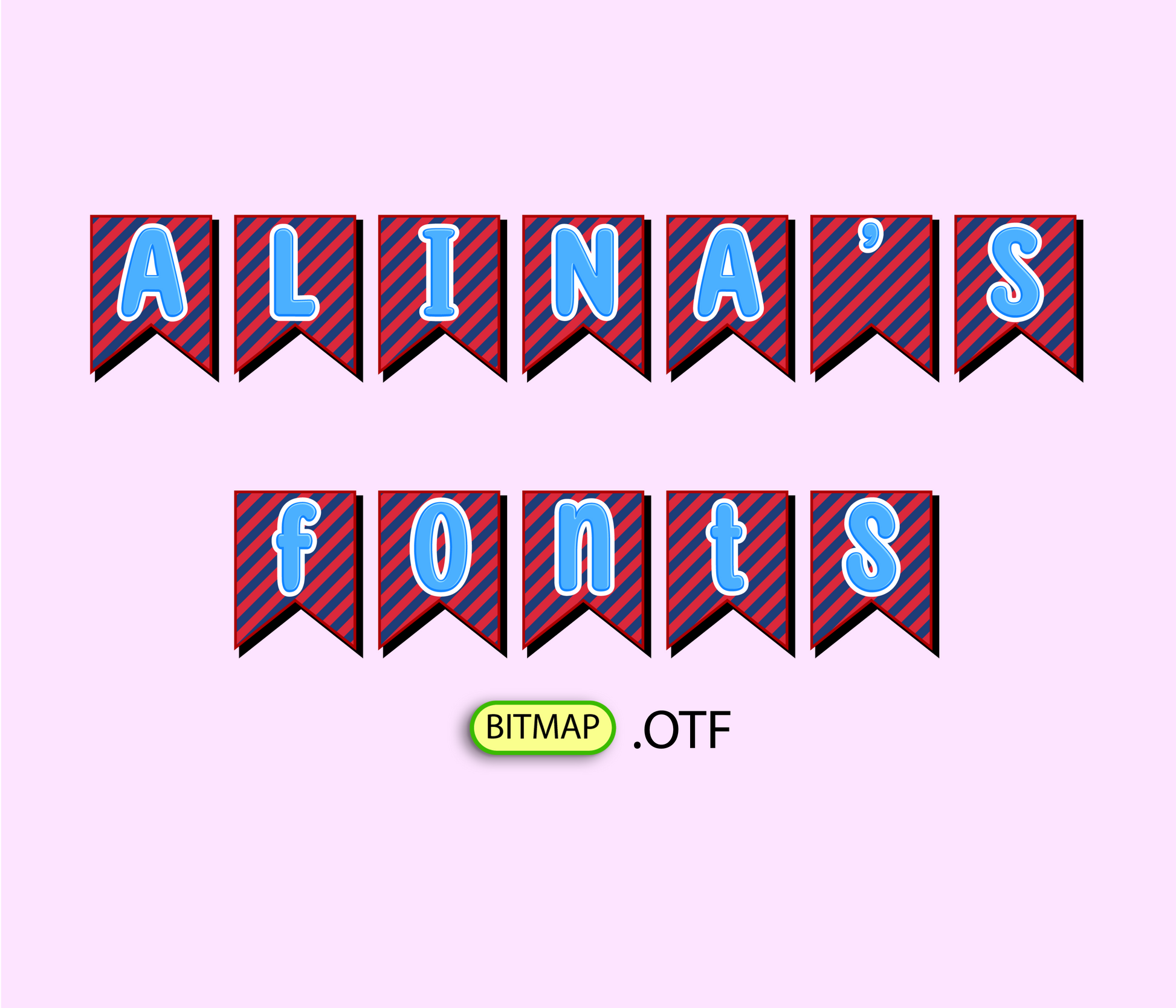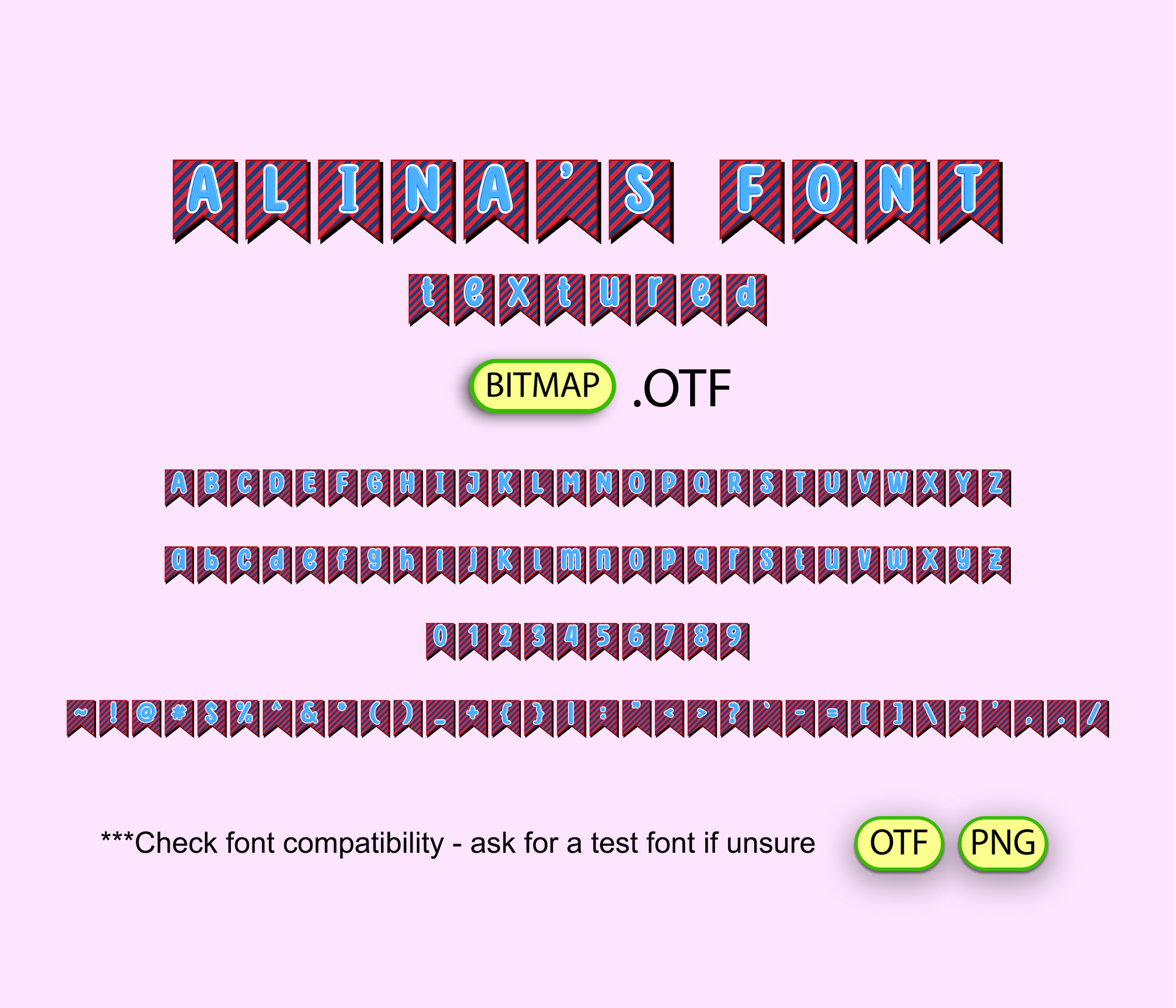
Liberty Heritage Banner Font Textured
Step into the timeworn dignity of founding-era commemoration and resonant historic liberty celebration with our Liberty Heritage Font Textured, capturing the essence of bell-toll remembrance and legendary founding history narrative storytelling. Perfect for Independence Day heritage planners, history enthusiast communities, commemorative event coordinators, and dignified design specialists, this font brings the bold, resonant character of beloved historic liberty narratives to your projects. Create dignified invitations, commercial goods, or web content with the resonant presence of founding-era heritage storytelling.
Dignified Typography for Independence Day & Historic Liberty Heritage Projects
Our Liberty Heritage Font Textured features bold, resonant letterforms with timeworn bell-toll textures reflecting the world of legendary founding-era commemoration and iconic historic liberty remembrance.
- Event Promotions: Craft dignified invitations, banners, and party decorations for Independence Day heritage celebrations, history enthusiast gatherings, and commemorative liberty events that radiate the resonant spirit of legendary founding-era entertainment
- Merchandise Design: Perfect for apparel, wall prints, adhesive graphics, and heritage collectibles that showcase the dignified aesthetic of bell-toll remembrance and founding-era liberty themes
- Digital Media: Resonate across websites, content channels, and social platforms with dignified header designs and imagery that express the historic wonder of legendary Independence Day liberty heritage festivities
- Creative Content: Add signature heritage flair to historic illustrations, liberty artwork, and imaginative projects inspired by beloved founding-era commemoration chronicles
- Personal Projects: Stir dignified heritage remembrance into memory albums, handcrafted items, and living space decorations inspired by the world of legendary historic liberty celebration characters
Our font pays tribute to the world of bell-toll remembrance wonder and generation-spanning founding-era liberty heritage culture, empowering your projects with its bold and resonant dignified character. Whether crafting Independence Day materials, designing heritage products, or adding a founding-era touch to personal projects, this font communicates the resonant essence of liberty heritage magic. Ready to resonate dignified remembrance into your creations? This font is your key to attention-grabbing, impactful design.